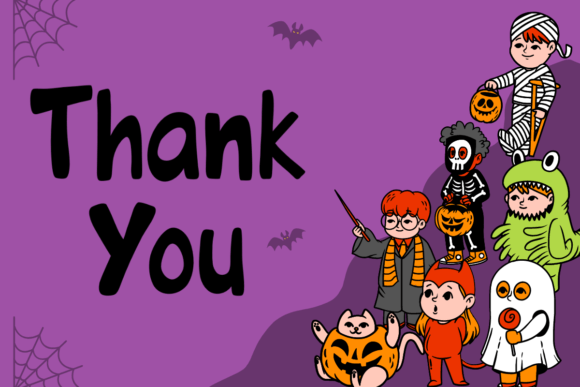
Introduction to Monsters Scream Font
As the sun sets on a crisp autumn evening, and the moon casts an eerie glow over the landscape, many designers find themselves captivated by the essence of the Halloween season. For some, it’s the perfect time to unleash their creativity and tap into the darker side of their imagination. For designers like you, it’s an opportunity to create something truly unique and captivating with the right design resources. That’s where the Monsters Scream Font comes in – a chilling and atmospheric sans serif typeface that’s sure to send shivers down your spine.
Perfect for creative projects that require a touch of mystery and spookiness, the Monsters Scream Font is a valuable addition to any designer’s toolkit. With its bold and sharp letterforms, this font is ideal for designing haunted house flyers, party invitations, and other eerie creations that demand attention. And the best part? You can download it for free, making it an accessible design resource for designers of all levels.
Whether you’re working on a high-quality design project or simply looking to add a touch of Halloween magic to your next creative endeavor, the Monsters Scream Font is sure to deliver. With its transparent background and high-quality design, this font is a must-have for any designer looking to create something truly unique and captivating.
Key Features of Monsters Scream Font
- High-quality design resource for creative projects, offering a unique and spooky aesthetic.
- Features a transparent background, allowing for seamless integration with any design or image.
- Designed with a high level of detail and precision, resulting in a crisp and clear font at resolutions up to 300 DPI.
- Monsters Scream Font is available in 5 different font styles, each with its own unique characteristics and flair.
- Perfect for designers, artists, and creatives looking to add a touch of horror or fantasy to their next project.
Honest Review: Monsters Scream Font
As a designer, I’m always on the lookout for unique and high-quality design resources to elevate my creative projects. Recently, I had the chance to work with the Monsters Scream Font, and I’m excited to share my honest review.
What works well: ✨ The font’s playful and quirky design makes it perfect for adding a fun touch to kids’ projects, party invitations, or even horror-themed designs. The high quality of the font ensures it looks crisp and clear on various backgrounds, including transparent ones.
- Transparent background support
However, there are a few limitations: ⚠️ The font may not be suitable for formal or professional designs, as its playful nature might not fit the tone. Additionally, some users may find the font’s irregularities distracting, so it’s essential to use it judiciously.
Overall, I’m impressed with the Monsters Scream Font’s uniqueness and versatility. It’s a great addition to any designer’s toolkit, especially for those working on creative projects that require a touch of whimsy. I’d definitely recommend it as a free download for designers looking to spice up their designs.
The Monsters Scream Font is a unique and eye-catching design resource ideal for creative projects that require a bold and playful touch. This high-quality font is available for free download and features a transparent background, making it easy to customize and integrate into various design platforms.
Experiment with different font sizes, colors, and styles to create a unique and attention-grabbing design. Use the transparent background feature to create a seamless integration with your design elements.